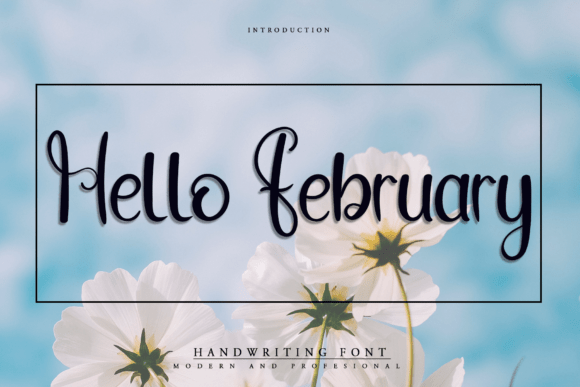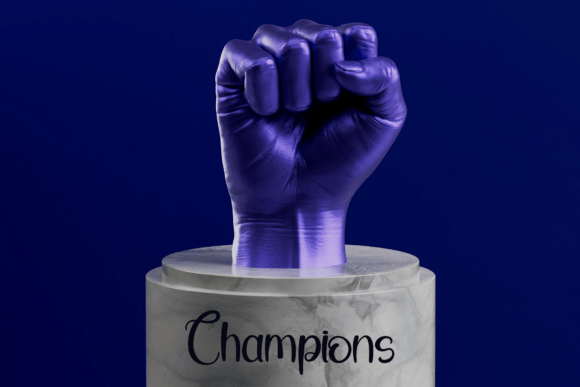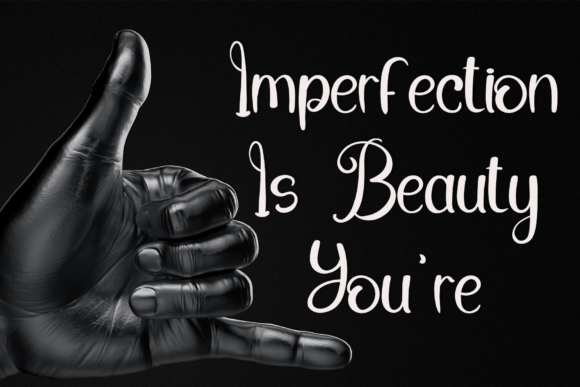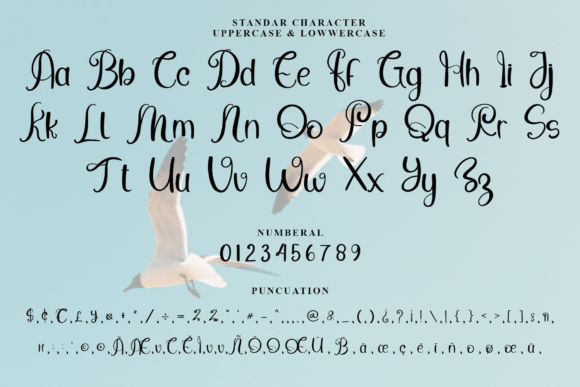
Hello February Font: Elegant Handwritten Script for Branding
About the Hello February Font
We are excited to introduce Hello February Font, a must-have typeface for any serious designer. Hello February is a trendy handwritten font with a contemporary atmosphere and impeccable form, inspired by timeless classic calligraphy. It will add elegance and class to any of your design projects.
Hello February excels in projects requiring a touch of elegant informality. It’s ideal for short headlines, logotypes, social media graphics, and invitations where its handwritten charm adds personality. Avoid using it for large blocks of text or UI elements; its readability suffers at smaller sizes and in extended passages.
The font’s core personality is sophisticated yet approachable. Think modern stationery, boutique branding, or a stylish event announcement. Its friendly elegance pairs well with clean sans-serif fonts like Lato or Open Sans for body text, creating a balanced contrast. For a more luxurious feel, consider pairing it with a classic serif like Garamond or a delicate script font like Great Vibes, used sparingly for accents.
For a bolder statement, a geometric sans-serif like Montserrat can provide a strong counterpoint, emphasizing Hello February’s handwritten grace. Careful consideration should be given to kerning and tracking, particularly when pairing with other fonts, to ensure optimal visual harmony.
Hello February Font Usage Examples
Hello February Font Example